The best fonts on the market, like Helvetica or Frutiger, come with a price, a price that’s hard to pay for some freelance designers. Luckily, nowadays plenty of talented designers create and publish free fonts that can help you diversify your designs without getting a penny out of your pocket.
1. Its Holiday
Free for one week on Creative Market, this fun Christmas time font will suit any holiday design you’ll create. The handwritten style gives it a unique look with some fun swirls and swooshes.
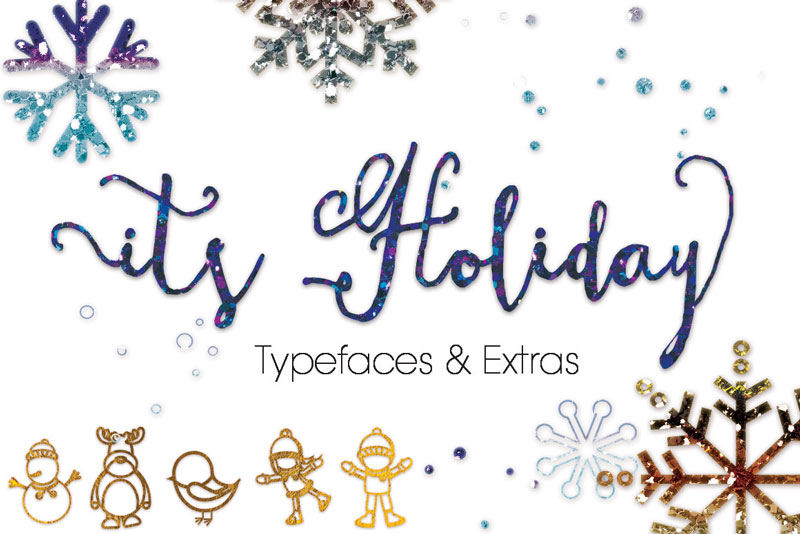
2. Baston
Baston is a free font with rounded corners and a rough texture. The general look-and-feel is perfect for grungy designs or to design anything that was partly destroyed by the sun, wind and rain. It comes with Latin and Greek characters.
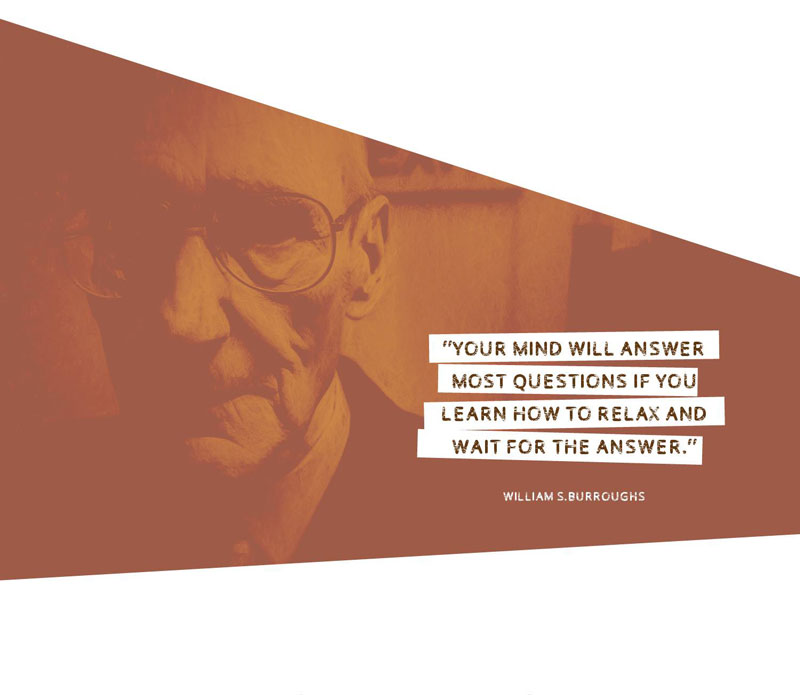
4. Cormorant
Named after a bird and designed by a Swiss designer, Cormorant is both free and open-source. It comes in various weights and styles, ligatures, and well-thought contextual alternates.
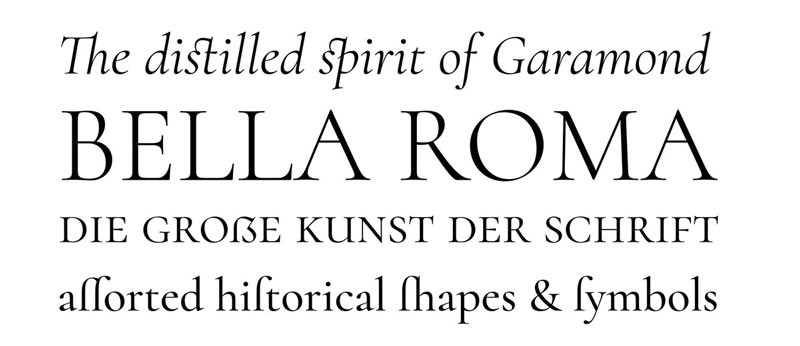
4. Hack
As its name suggests, Hack is a typeface that was designed with a specific purpose: coding. It was released as an open-source font with amazing features for programmers. It is multilingual, includes enough sets to cover all your syntax highlighting needs, and even has powerline glyphs support.
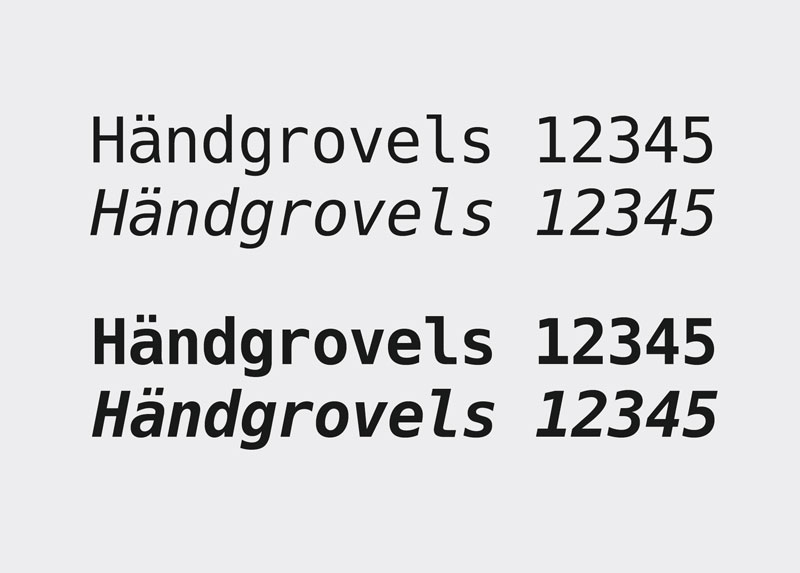
5. Bernier
Bernier is an all-caps font family that comes with several layers that you can use for decorative purposes. It is perfect for vintage badge, old school style typography, and logotype.
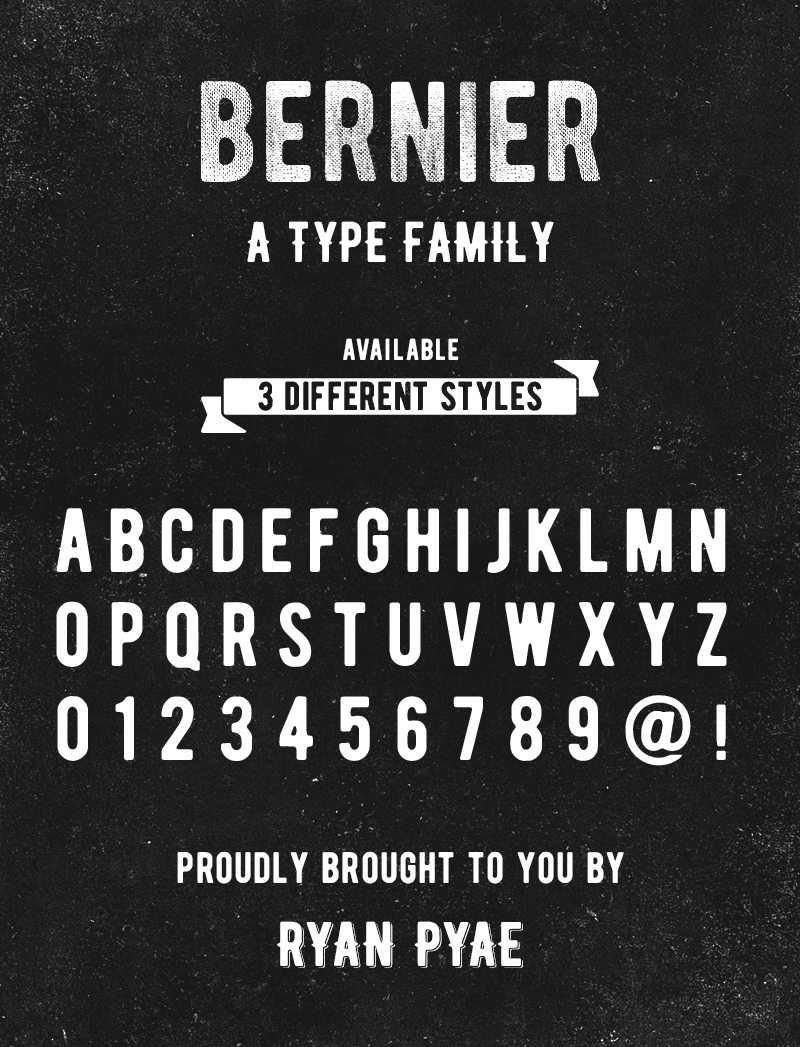
6. Asimov
The Asimov font is a derivative of the Apache Licensed Open Source font, Roboto, by Google. The core design wasn’t changed, but it was extended with new characters and some new widths and styles.
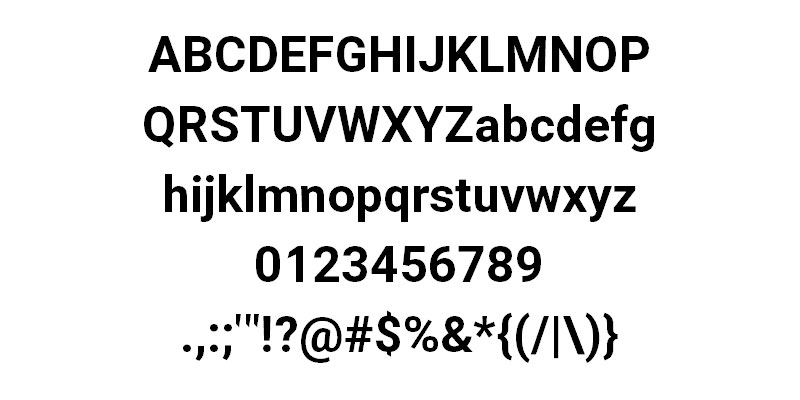
7. Nickainley Script
Nickainley is a Monoline Script font that comes with a classic and vintage touch. It includes lowercase and uppercase characters, numerals and punctuation. It is free for both personal and commercial uses and works perfectly for logos, badges, wedding invitations, t-shirts, labels, signage, and much more…
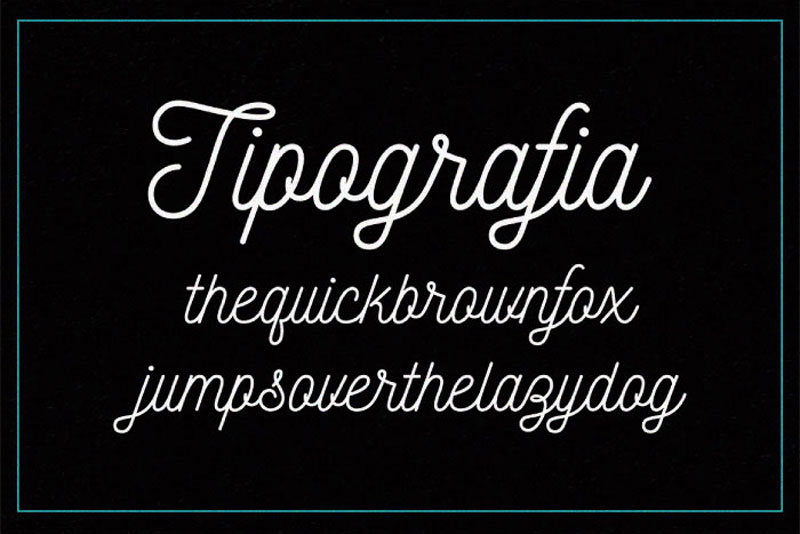
8. Manufraktur
Designed by Nathan Watkins, Manufraktur is a nice typographic experiment that combines blackletter type with retrofuturism. You can download it free for personal or commercial use.
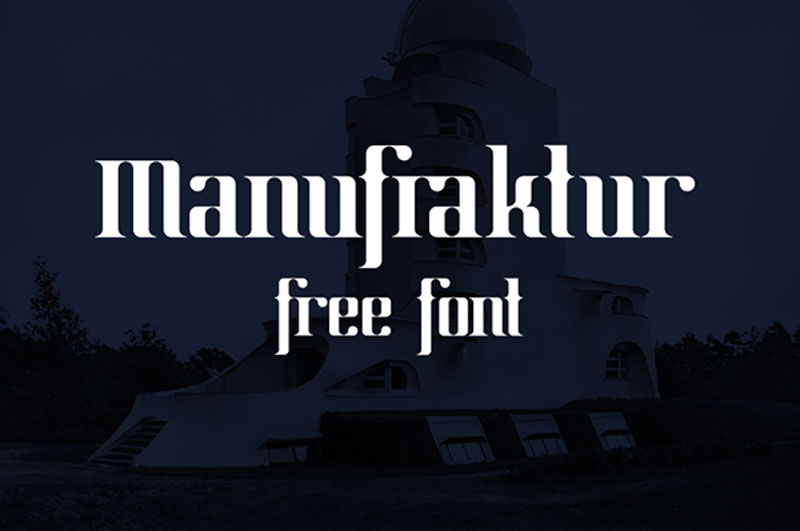
9. Bellaboo
A softer touch compared with the other typefaces in this list. Bellaboo is an all-caps handwriting font that was designed by Marcelo Reis.
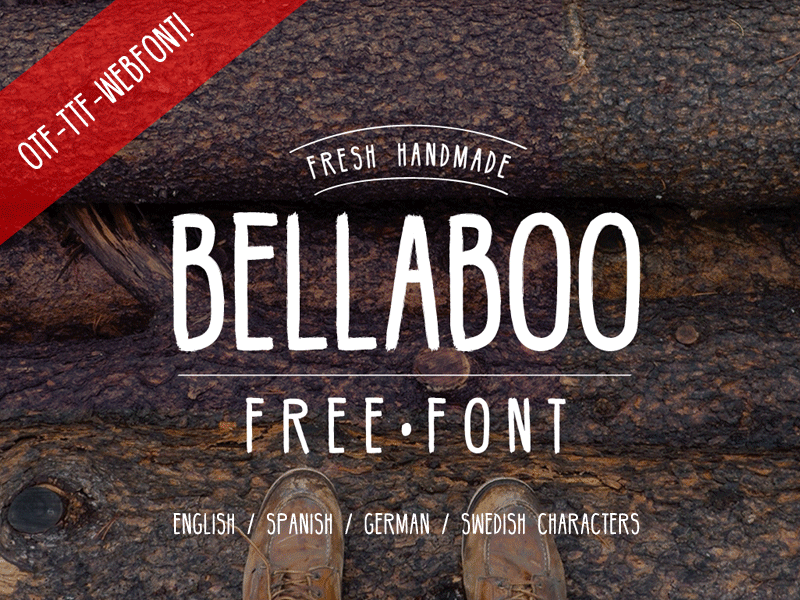
10. Pier Sans
This free geometric font comes with four weights. It is well-structured and provide a good base for solid designs. Pier Sans was designed by Mathieu Desjardins from Canada.